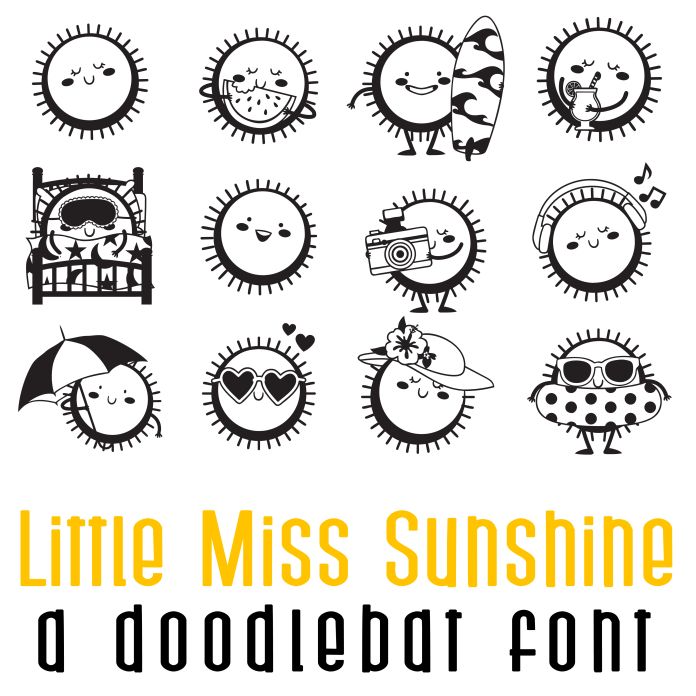
This fun doodlebat font features 26 fun loving sunshines perfect for summer, parties, cardmaking, classrooms, scrapbook pages, planner stickers and more!